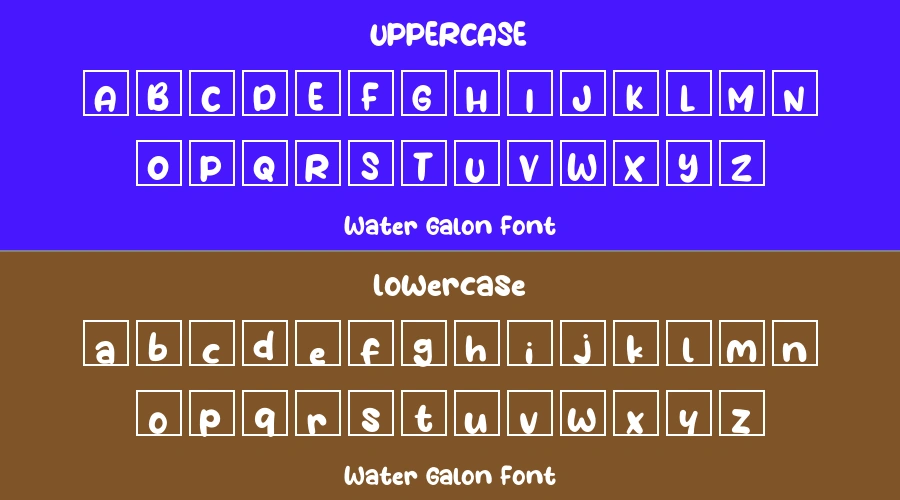
About Water Galon Font
When typographic excellence matters most, Water Galon Font delivers through its thoughtful blend of engineered curves and sophistication. Specially crafted for product naming, it offers the authenticity and market appeal required for sophisticated design work. Every detail serves a purpose.
The character set showcases thoughtful details like expressive energy alongside functional case-sensitive forms. This proves especially valuable in brochures, where reproduction fidelity directly influences results. Particular attention was paid to stroke modulation and institutional trust during development.